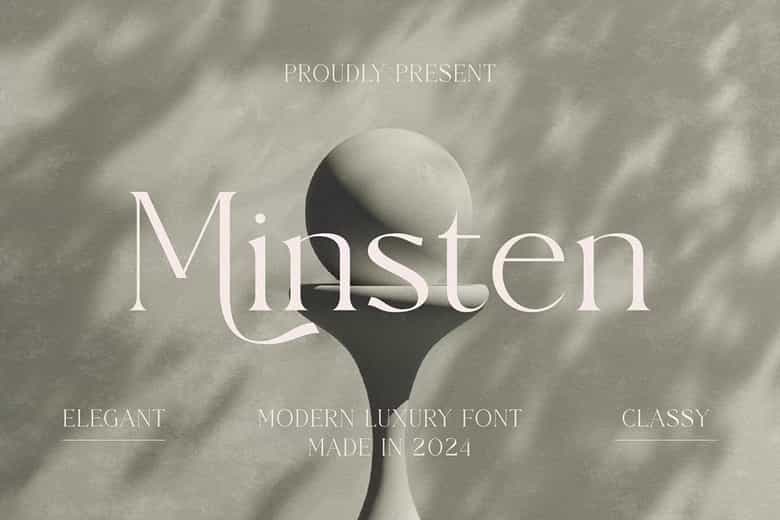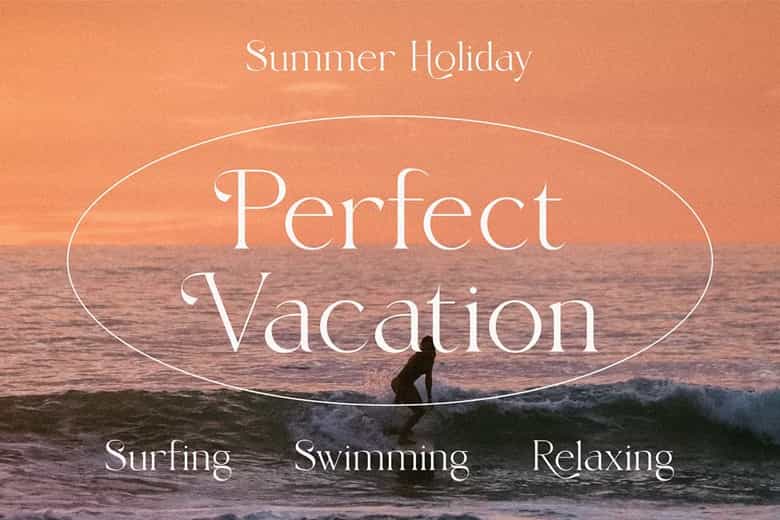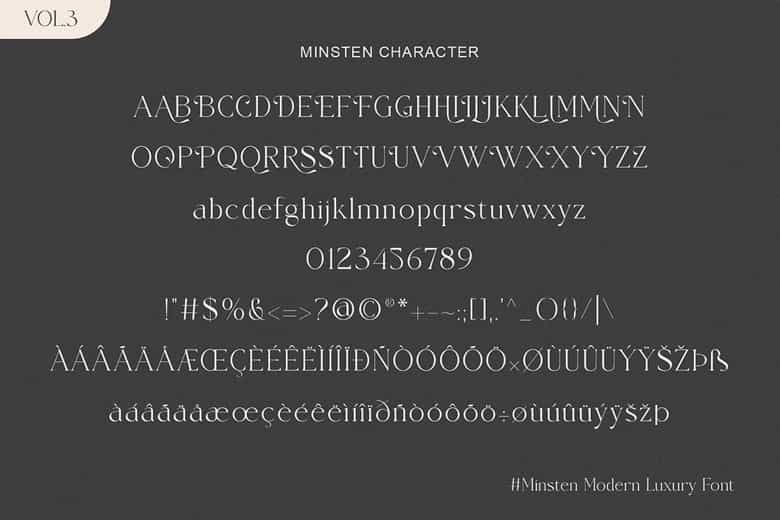
Minsten is described as being elegant, beautiful and modern serif font. It’s elegance, sophistication and an aesthetic appeal frees your design from any clutter and brings in a truly professional class to your work such as websites, logos, brand identification, social media messages, wedding invitations, magazine covers and any other usage you need!